Is there by chance a math font resembling the sample equations in these trimmed images?
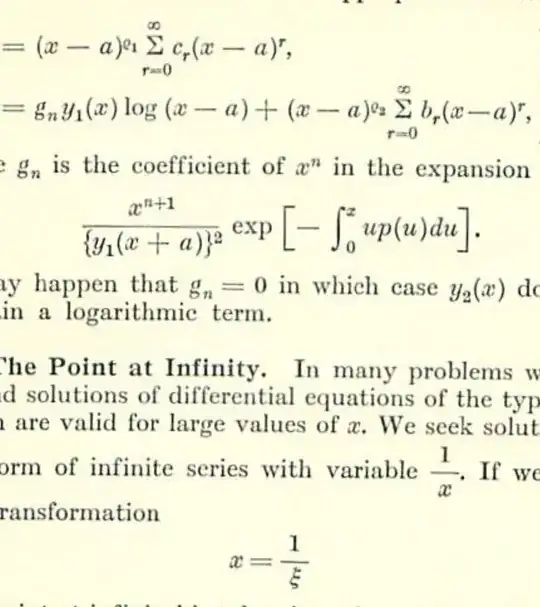
Not completely sure but some letters seem to match Old Standard https://ctan.org/tex-archive/fonts/oldstandard – Apoorv Potnis Mar 20 '24 at 11:04
This seems to provide a decent emulation. You can possibly do better for the integral symbol.
\documentclass{article}
\usepackage{mlmodern}
\usepackage[nolimits]{cmupint}
\usepackage{amsmath}
\usepackage{microtype}
\DisableLigatures[f]{encoding=\encodingdefault,family=\familydefault}
\DeclareSymbolFont{slanted}{\encodingdefault}{\familydefault}{m}{sl}
\DeclareMathSymbol{g}{\mathalpha}{slanted}{`g}
\DeclareFontFamily{U}{cmupint}{}
\DeclareFontShape{U}{cmupint}{m}{n}{ <-> s*[0.8] cmupint}{}
\begin{document}
$g_n$ is the coefficient of $x^n$ in the expansion of
[
\frac{x^{n+1}}{{y_1(x+a)}^2}\exp\Bigl[-\int_0^x up(u),du\Bigr].
]
It may happen that $g_n=0$ in which case $y_2(x)$ denotes
a logarithmic term.
\textbf{The Point at Infinity.}\quad In many problems
\end{document}
My Old version
\documentclass[12pt]{article}
\usepackage{mathspec}
\defaultfontfeatures{Mapping=tex-text}
\setallmainfonts{Old Standard}
\DeclareSymbolFont{mathptmxlargesymbols}{OMX}{ztmcm}{m}{n}
\DeclareMathSymbol{\upsumop}{\mathop}{mathptmxlargesymbols}{"50}
\DeclareMathSymbol{\upprodop}{\mathop}{mathptmxlargesymbols}{"51}
\begin{document}
, for there coordinates, Laplace's equation in the form
\[\frac{\partial^2\psi}{\partial \rho^2} +\frac{1}{\varrho}\frac{\partial\psi}{\partial\varrho}+\frac{1}{\varrho^2}\frac{\partial^2\psi}{\partial\phi^2}+\frac{\partial^2\psi }{\partial z^2}=0.\]
\end{document}